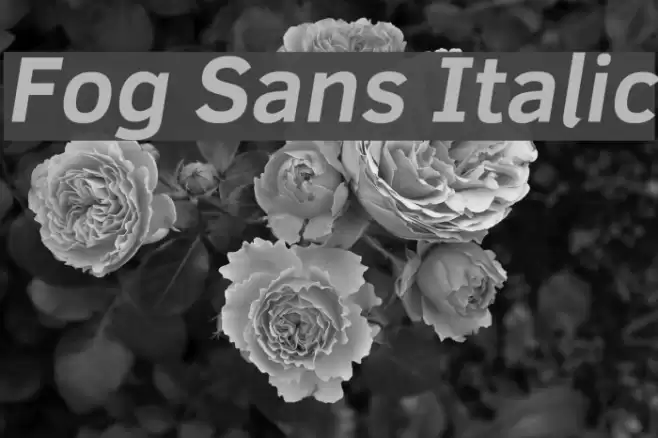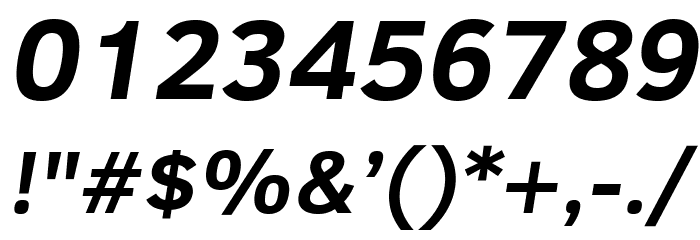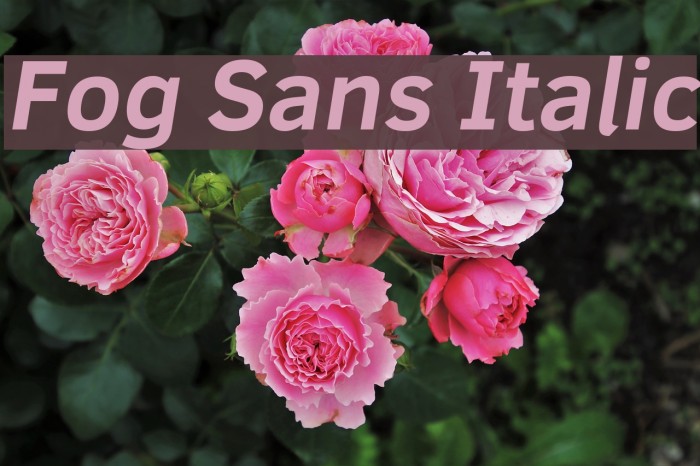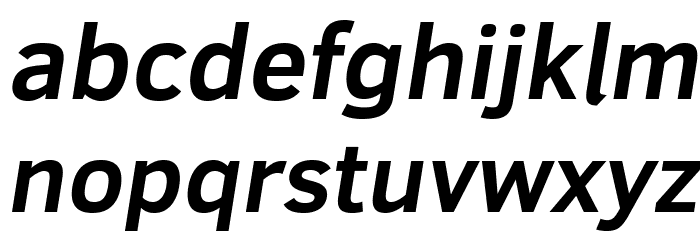
Fog Sans Italic
This typeface features a sleek, modern design with a sans-serif style that emphasizes clarity and readability. The italicized form adds a dynamic and forward-leaning appearance, making it suitable for conveying motion or emphasis. The characters are well-proportioned with consistent stroke widths, contributing to a clean and professional look. The numerals and special characters are designed to match the overall aesthetic, ensuring uniformity across different uses. The font's simplicity and elegance make it versatile for various applications.
A modern, italic sans-serif font with a clean and dynamic style.
- Proposed Projects: Ideal for branding, advertising, digital interfaces, and editorial design where a contemporary and professional look is desired.